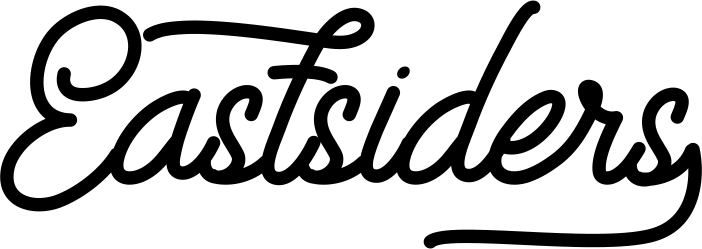
Eastsiders Font
If you want your texts to be more aesthetic, script fonts can be ideal for you! This 50s diner font is called Eastsiders. It will give life to your texts and give an elegant and retro feeling to your reader. You can use this one for branding logos, product introductions and naming, retro romance movie titles, and classic novels.